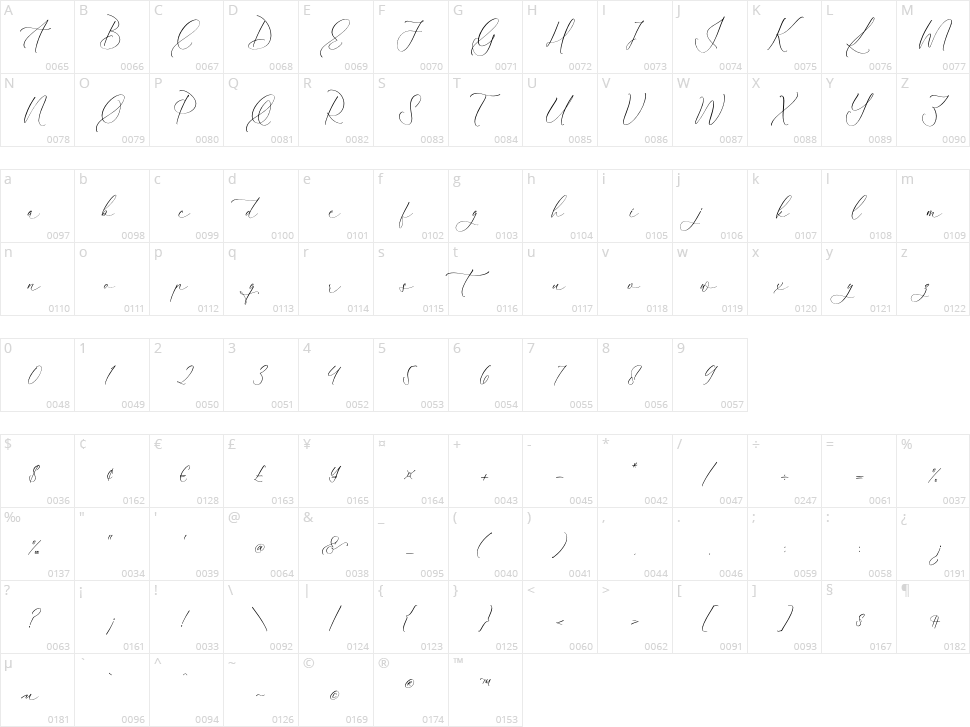
Qloveland Marrtin
A quick and dirty design of a simple font idea. I based this small display font on my 'Minne Petat' font and finished it in a single evening. Made the mockups a while ago, I kind of like how it works, especially when you overlap the italic and regular versions.